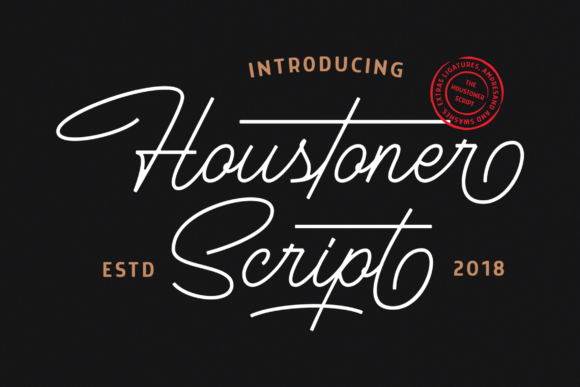
Journey into the Realm of Exquisite Typography with Houstoner Font
Prepare to be mesmerized by Houstoner, a script font that captures the essence of timeless elegance and contemporary flair. Inspired by the rich history of classic typography, this masterpiece is meticulously crafted to bring a touch of sophistication and uniqueness to your creative endeavors.
With its graceful curves, delicate strokes, and striking contrast, Houstoner effortlessly elevates any design project, leaving an indelible impression on your audience. Immerse yourself in the world of Houstoner and discover the boundless possibilities it holds.
Unleash Your Creativity with Endless Applications
Houstoner's versatility knows no bounds. Its captivating presence graces headlines of all sizes, adding a touch of charm and distinction to your messages. Whether it's for web design, print media, moving images, or any other creative pursuit, Houstoner seamlessly adapts, ensuring a stunning visual impact.
Experience the Allure of Houstoner in Every Creation
Houstoner's beauty lies in its versatility. Whether you're crafting logos, branding materials, invitations, social media graphics, or any other design element, Houstoner effortlessly enhances your vision. Its timeless appeal adds a touch of sophistication that resonates with your audience, leaving a lasting impression.
Houstoner: A Legacy of Excellence
Crafted by the renowned Martype.Co, Houstoner is a testament to their dedication to typographic artistry. With a keen eye for detail and an unwavering commitment to quality, Martype.Co has created a font that stands the test of time. Experience the brilliance of Houstoner and elevate your designs to new heights of elegance and distinction.